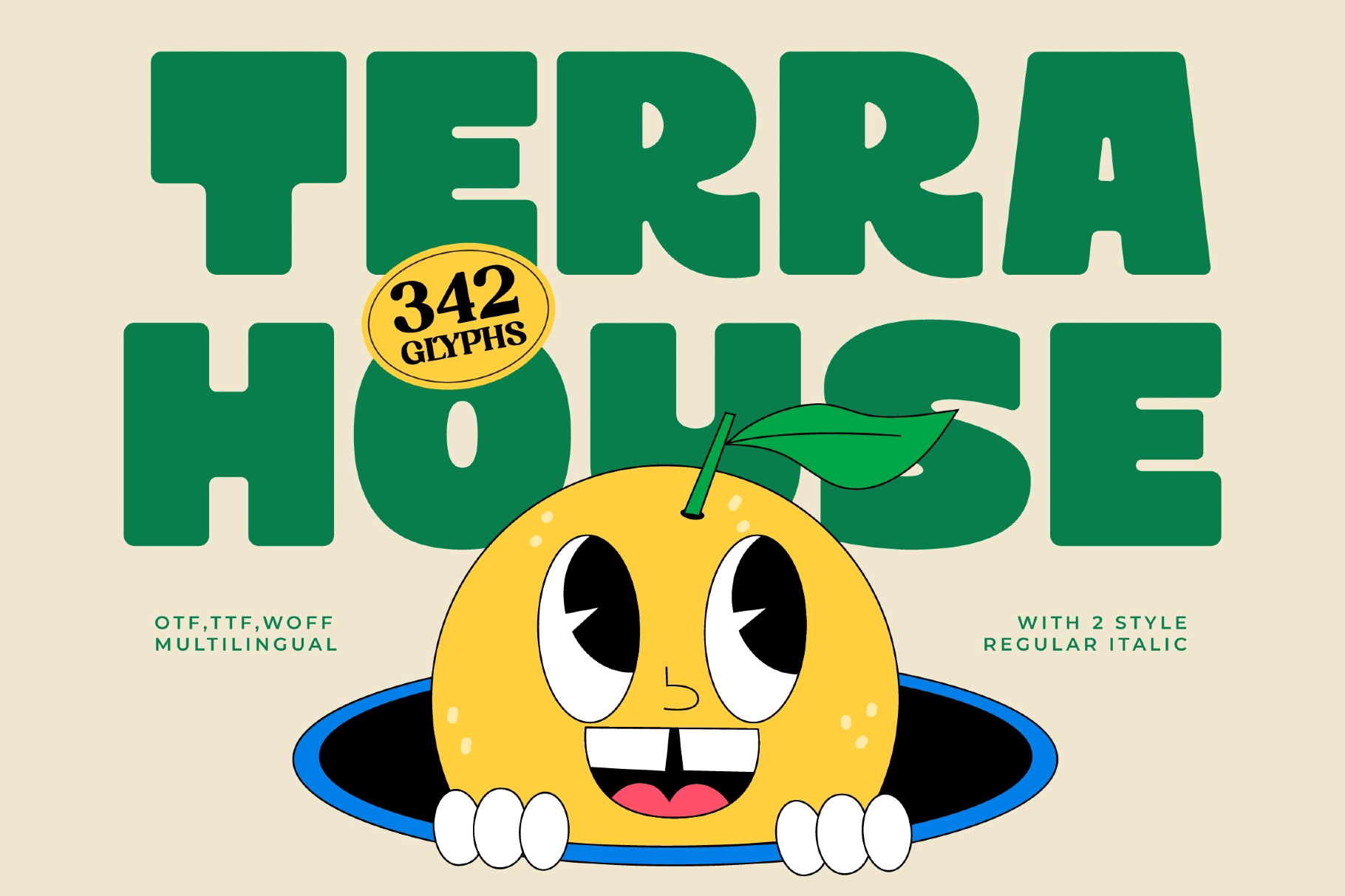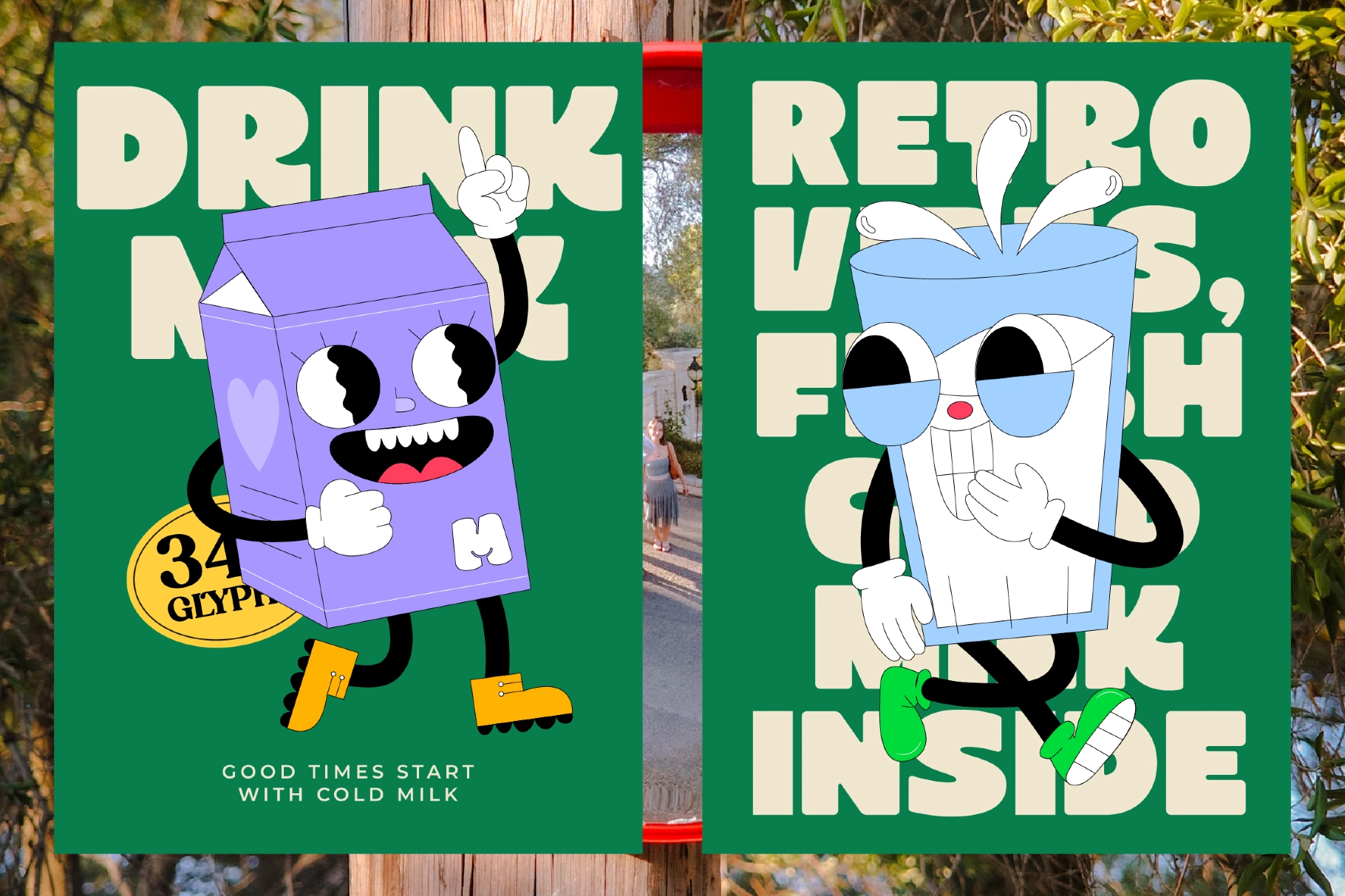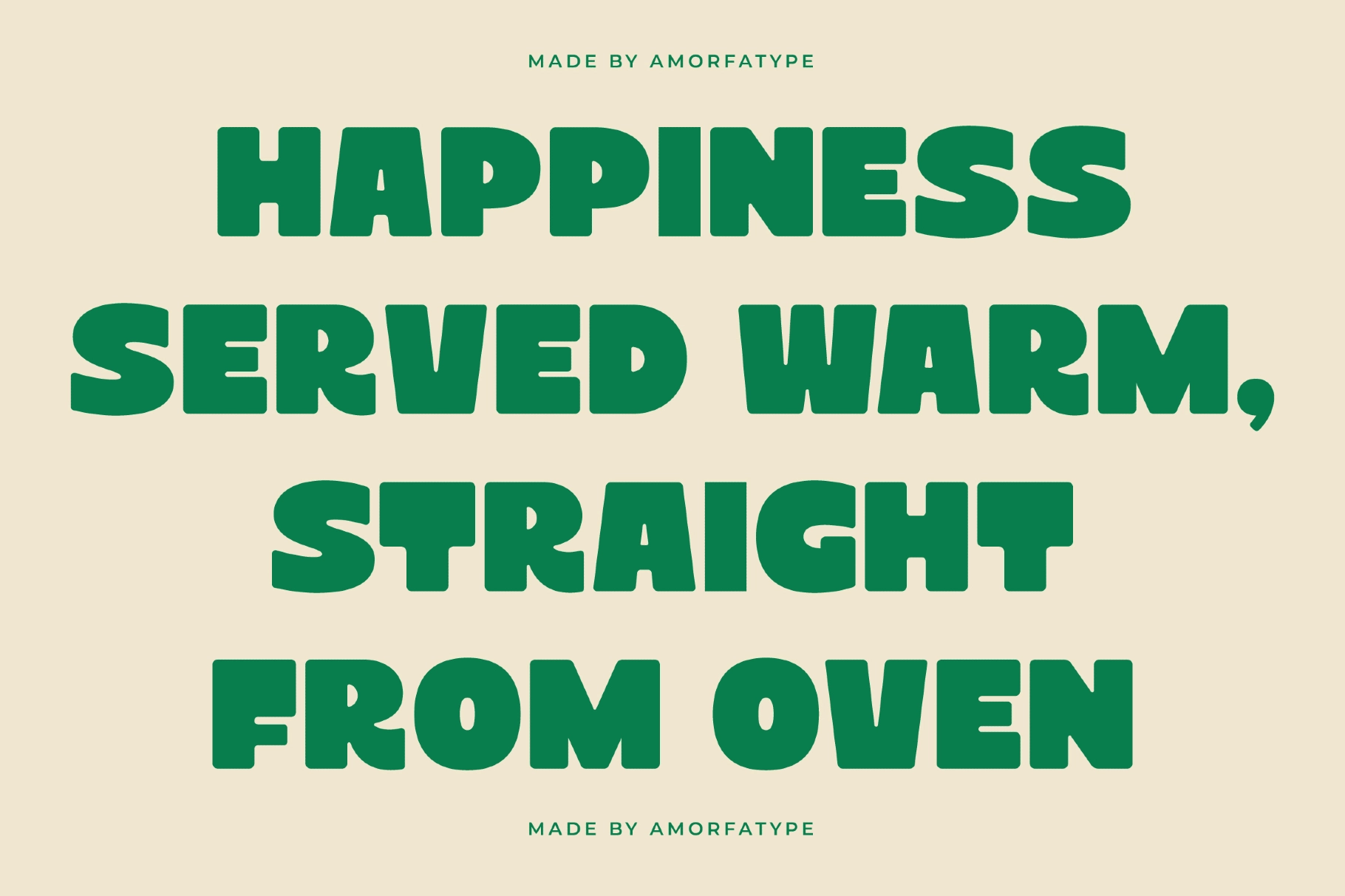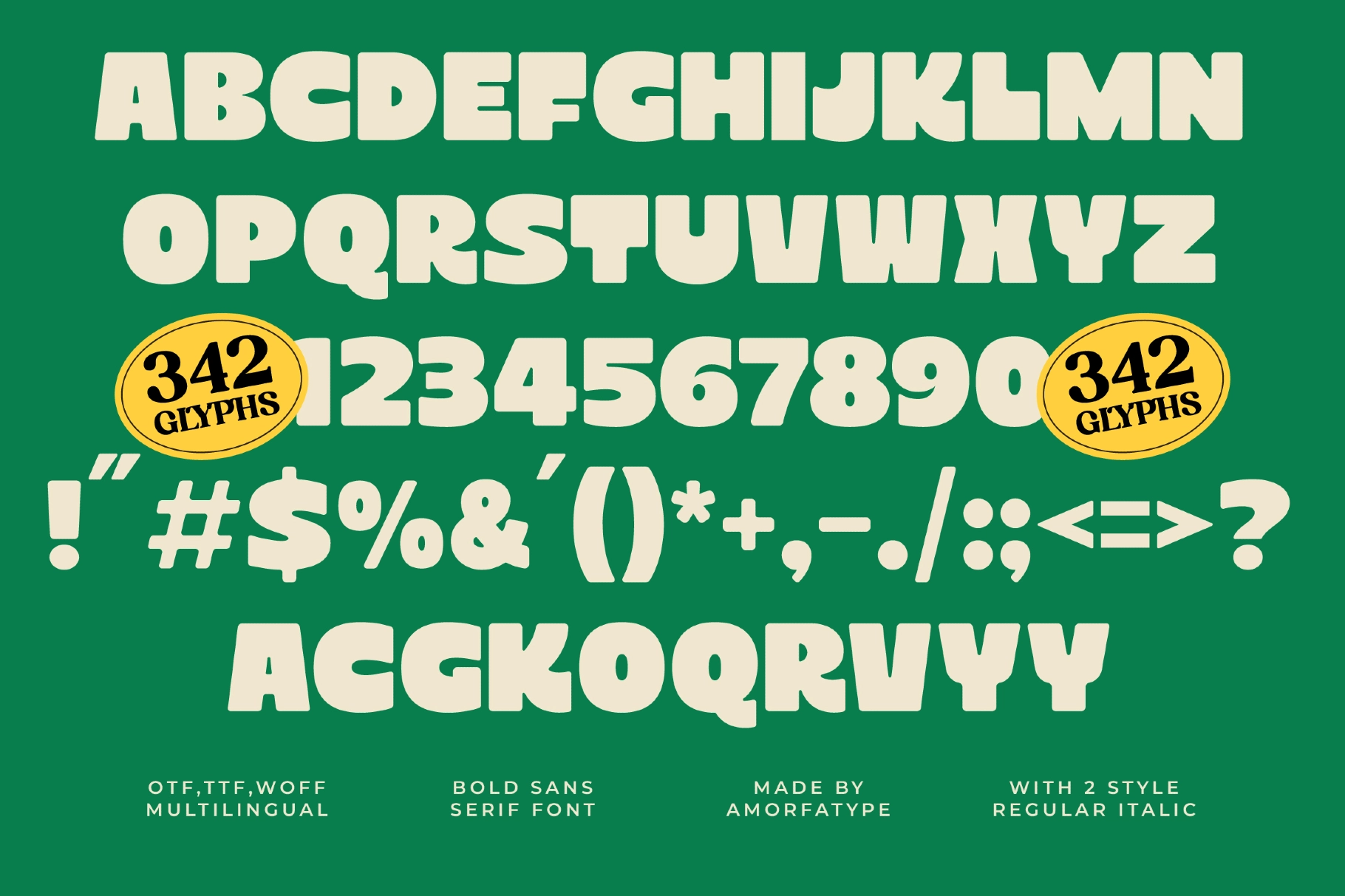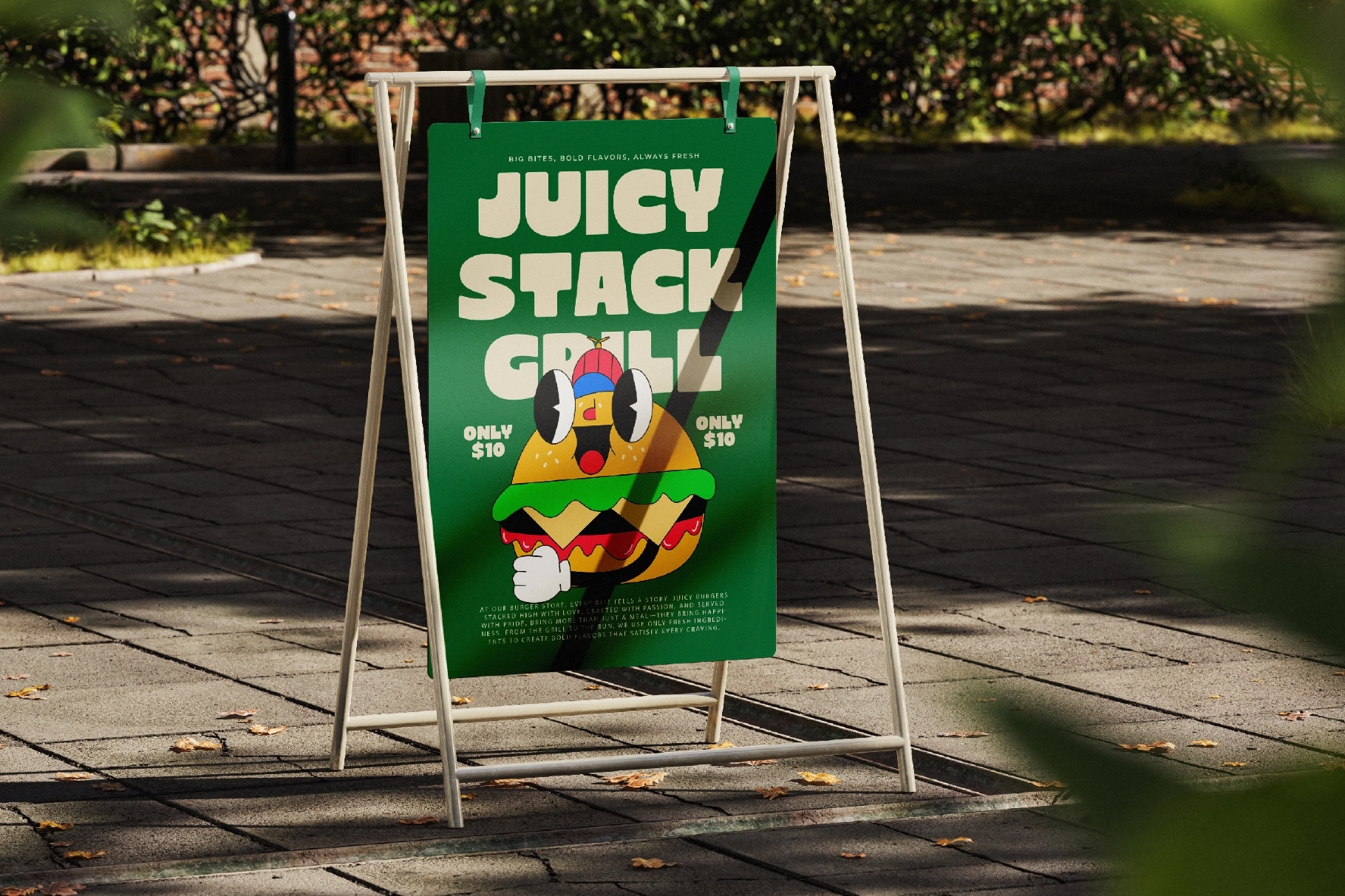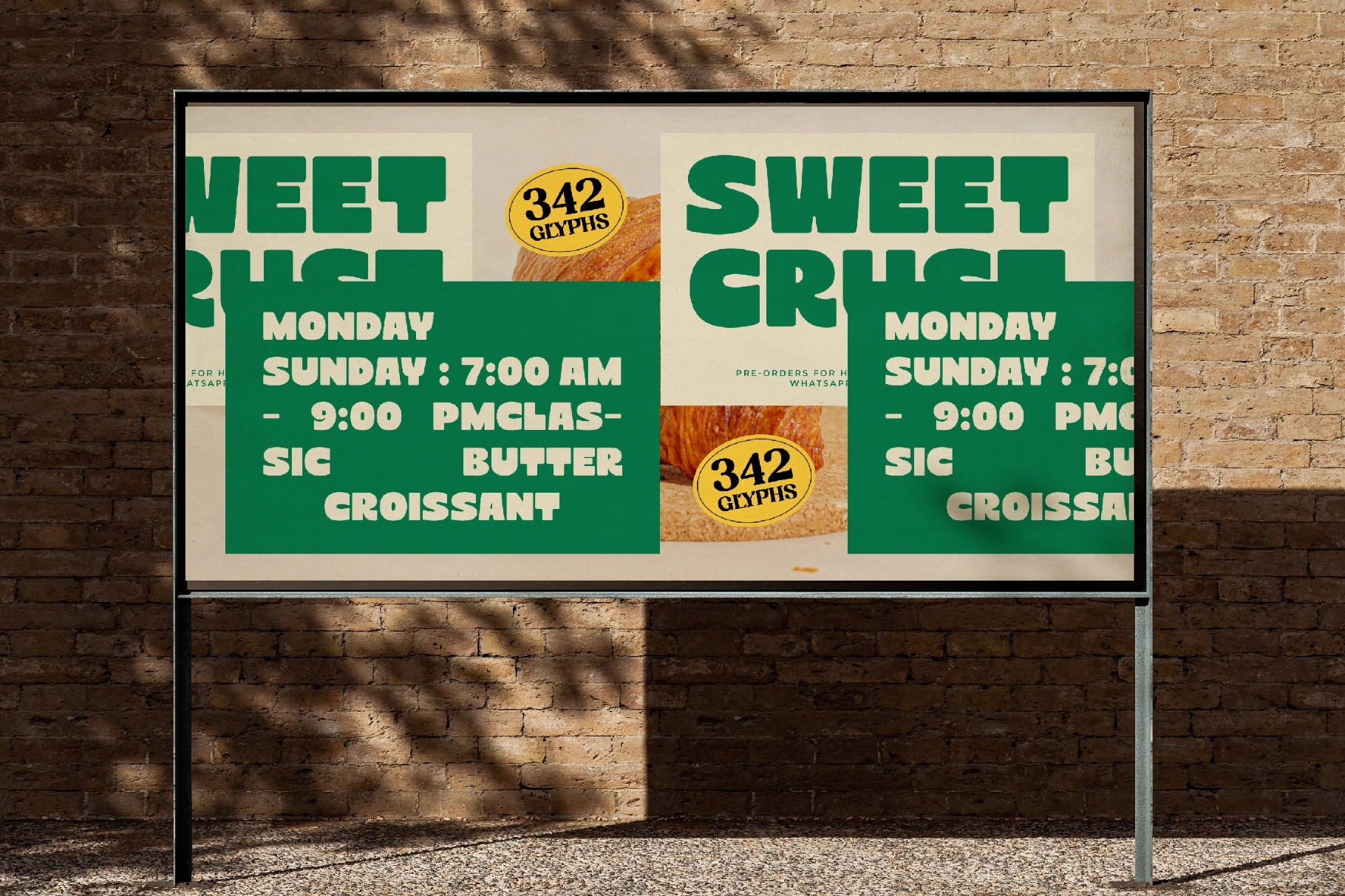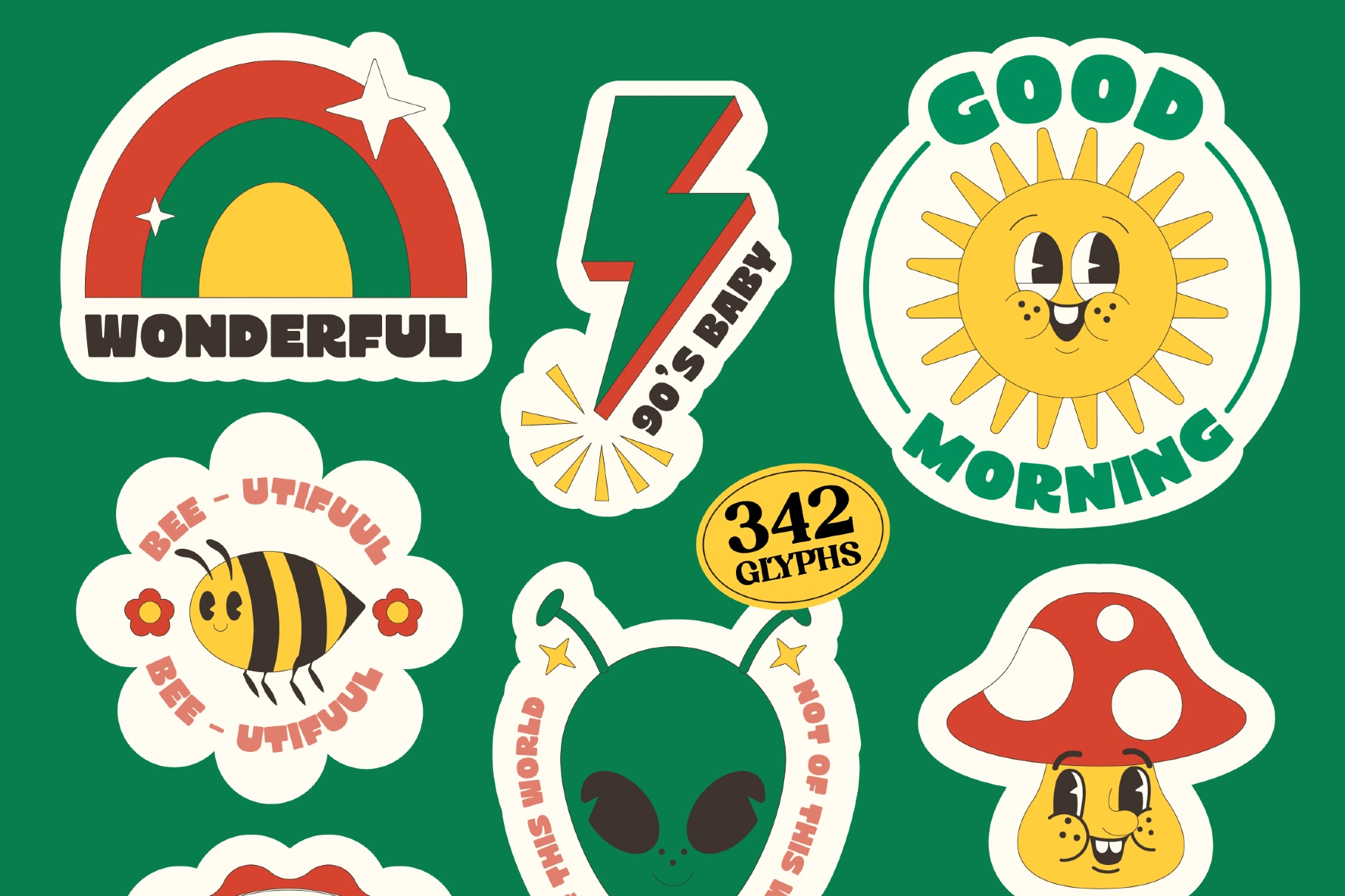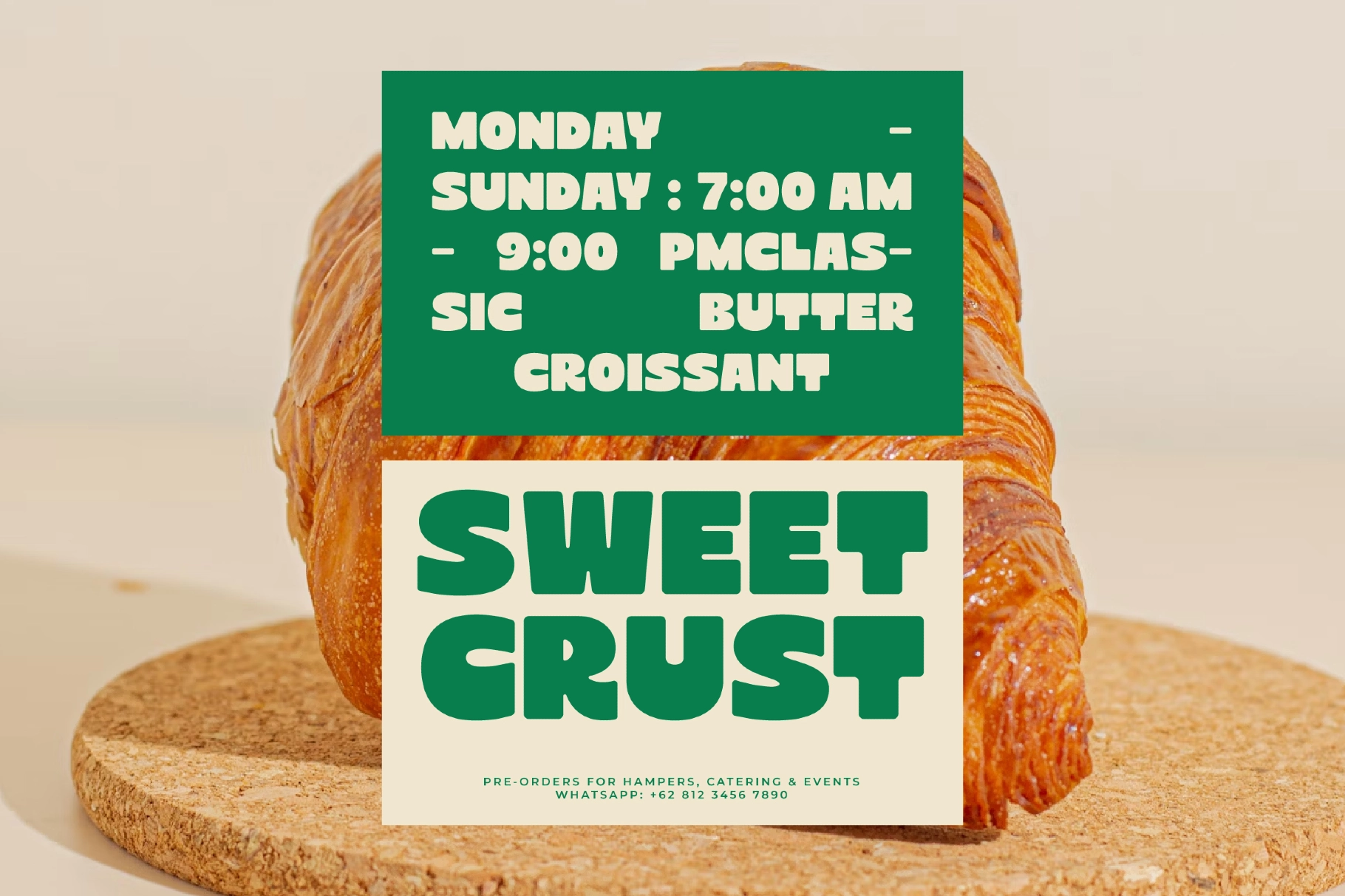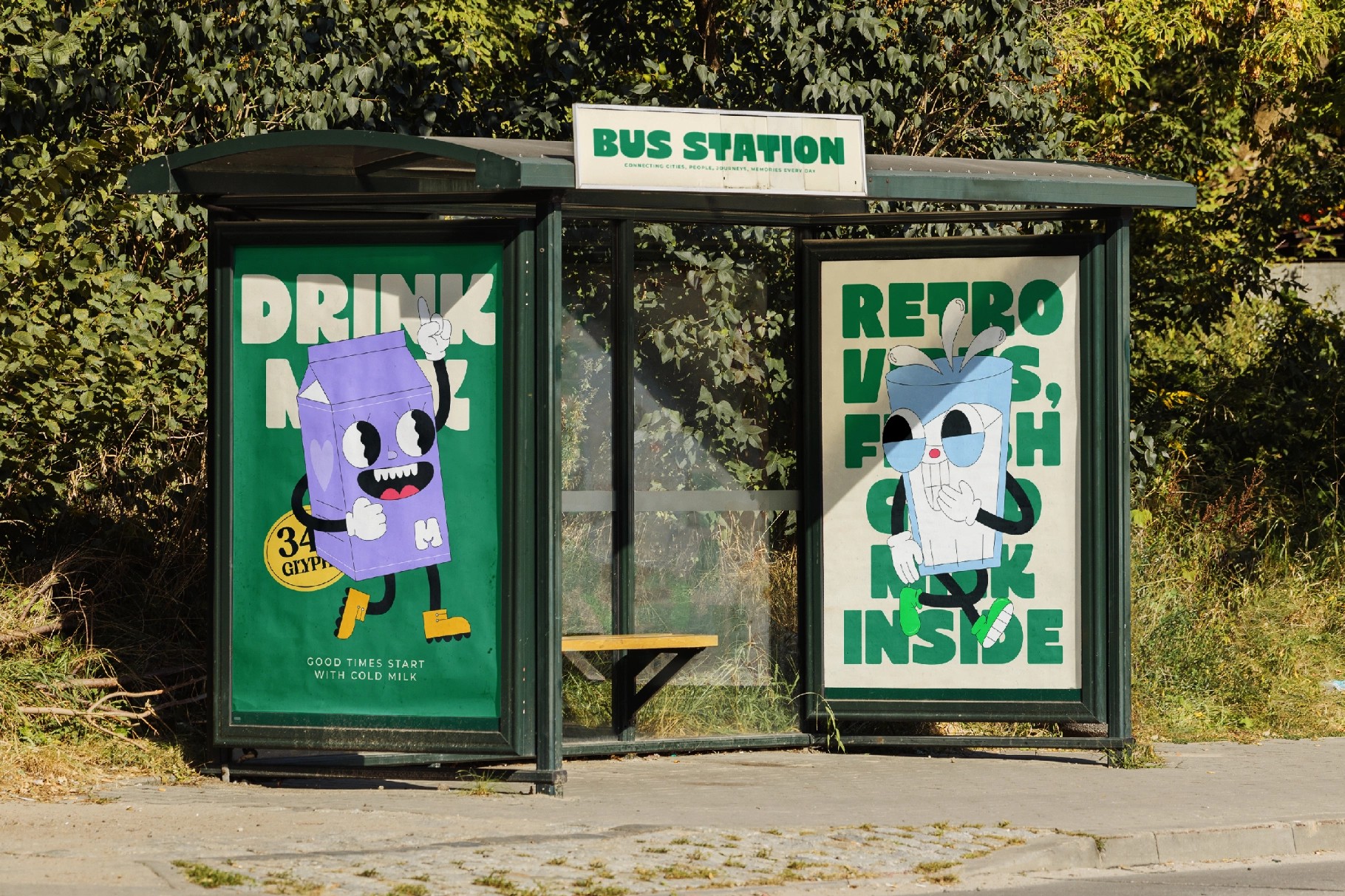
Terra House - Bold Sans Display Font
This bold display font carries big snack-aisle energy: chunky sans letterforms, rounded corners, and quirky cuts that give every headline a warm retro punch. Its heavy uppercase rhythm is loud, friendly, and easy to read, with enough oddball charm for brands that prefer a grin over a corporate handshake.
Terra works well for cafe identities, bakery packaging, food truck menus, poster headlines, merch graphics, product labels, children’s branding, social media promos, editorial openers, signage, stickers, and more. The character set includes playful alternates, multilingual support, and web font files, so the same expressive voice can carry across print, packaging, and digital work without losing its punch.
- 2 styles: Regular, Italic
- 342 glyphs
- 10 alternates